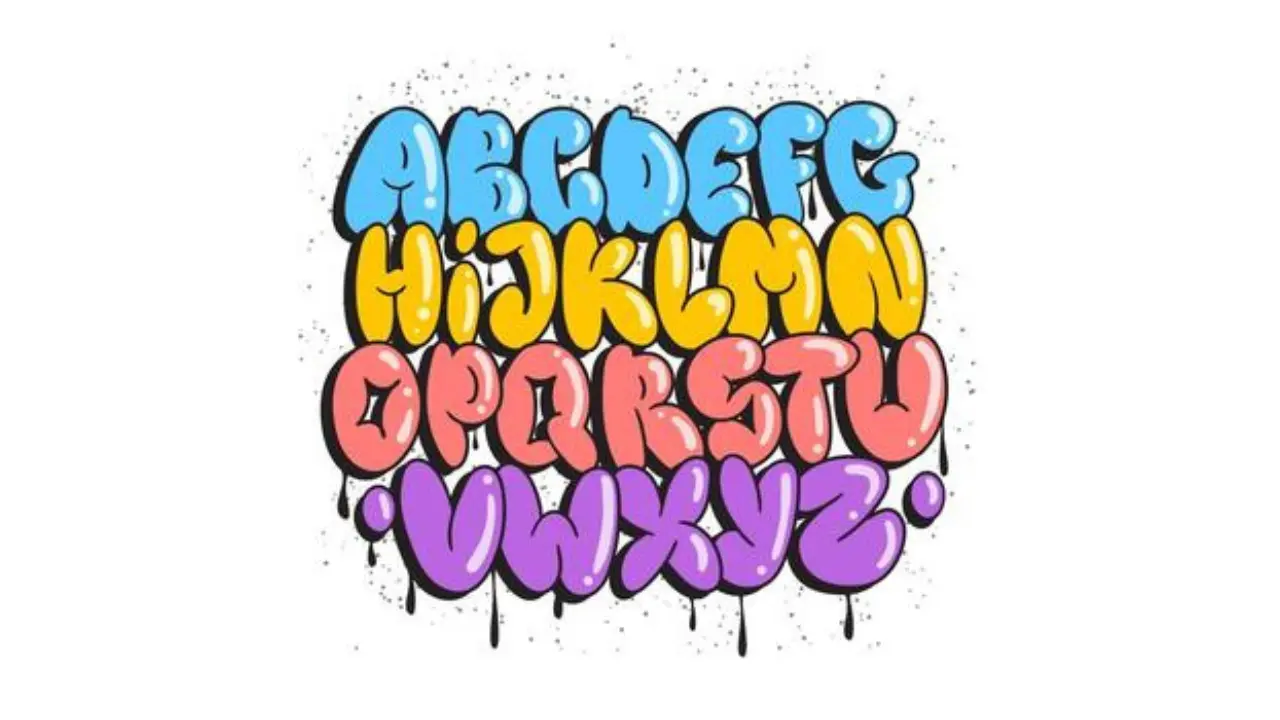
Alphabet In Bubble Letters Simple and Creative Lettering Ideas
The alphabet in bubble letters is a fun lettering style that turns normal letters into thick, rounded shapes. People often use this style for school projects, posters, notebooks, birthday cards, logos, and creative artwork. Bubble lettering looks playful because each letter appears soft, bold, and almost inflated like a balloon. You do not need advanced drawing skills to learn it because you can start with simple outlines. With a pencil, eraser, and a little practice, anyone can create attractive bubble-style letters.
What Is an Alphabet in Bubble Letters?
An alphabet in bubble letters includes all letters from A to Z drawn with thick and rounded outlines. Instead of writing a regular letter, you draw a larger shape around it to create a bold appearance. The inside of the letter may stay empty, or you can fill it with colors, patterns, shadows, or small designs. Uppercase letters usually work well for beginners because their basic shapes are easier to follow. Lowercase bubble letters can also look attractive, especially in headings and decorative writing.
Bubble lettering does not follow one strict design. Some artists create very round letters, while others use wider shapes or soft block-style forms. This flexibility makes bubble lettering suitable for children, students, designers, and hobby artists.
Why Are Bubble Letters So Popular?
The alphabet in bubble letters remains popular because it makes ordinary writing look more creative. A simple word can become a strong visual feature when you draw it with thick, rounded letters. This style also gives you plenty of space to add colors and decorations.
Students often use bubble letters for classroom posters, project headings, and notebook covers. Artists may use them for doodles, handmade signs, and digital illustrations. Bubble lettering also works well for names because each letter can have a different pattern while still matching the same overall style.
How to Draw Bubble Letters from A to Z
Drawing bubble letters becomes easier when you begin with a normal letter as your guide. Write the letter lightly with a pencil and leave enough space around it. Next, draw a thick rounded outline around each part of the letter. Keep the outer lines smooth instead of making sharp corners.
After completing the outline, erase the original pencil line inside the letter. You should now have a large hollow bubble shape. You can leave the letter simple or add color, shading, dots, stars, stripes, or other details.
When practicing the alphabet in bubble letters, work through the letters slowly instead of trying to perfect everything at once. Letters such as O, C, D, and U often feel easier because they already contain curved shapes. Letters like M, N, W, and K may require more practice because they contain several angles.
Uppercase Bubble Letters
Uppercase bubble letters provide a strong and clear appearance. They work especially well for titles, banners, signs, and school project headings. Most beginners also find uppercase lettering easier because capital letters have simple structures.
For example, you can turn a capital A into a bubble letter by drawing rounded lines around its two sides and crossbar. A capital B needs two large rounded sections, while an O simply needs a thick circular outline. Try to keep the width of each letter similar if you want the complete alphabet to look balanced.
Lowercase Bubble Letters
Lowercase letters give bubble writing a softer and more casual style. You can use lowercase designs for names, short quotes, social media graphics, and notebook decorations. Letters such as a, b, d, g, and p have rounded areas that naturally fit the bubble style.
Creating a lowercase alphabet in bubble letters may require more attention because some letters have tall or hanging parts. For example, the letter “g” can extend below the writing line, while “b” rises above many other lowercase letters. Keeping these differences helps the alphabet remain easy to read.
Bubble Letter Styles You Can Try
| Bubble Letter Style | Main Look | Best Use |
|---|---|---|
| Classic Bubble | Thick and rounded | School projects and posters |
| 3D Bubble | Rounded with shadows | Titles and artwork |
| Graffiti Bubble | Bold and expressive | Street-style designs |
| Patterned Bubble | Filled with shapes | Cards and notebooks |
| Colorful Bubble | Bright color combinations | Kids’ projects |
| Shadow Bubble | Dark edge behind letters | Banners and headings |
You can experiment with several styles until you find one that matches your project. Beginners may want to start with classic bubble letters before moving to 3D effects and detailed patterns.
How to Make Bubble Letters Look 3D
Adding a shadow can make the alphabet in bubble letters look more three-dimensional. First, complete the normal bubble outline. Then choose one direction for the shadow, such as down and to the right. Draw a second short line from the same side of every letter.
Final Thoughts
Learning the alphabet in bubble letters gives you an easy way to make everyday writing more colorful and interesting. Start with simple uppercase shapes, draw smooth outlines, and then experiment with lowercase letters, shadows, colors, and patterns. You do not need expensive tools or professional drawing experience to get started. Regular practice will help your letters become smoother, more balanced, and easier to decorate. Whether you use bubble lettering for schoolwork, artwork, signs, or personal projects, it offers plenty of room for creativity.